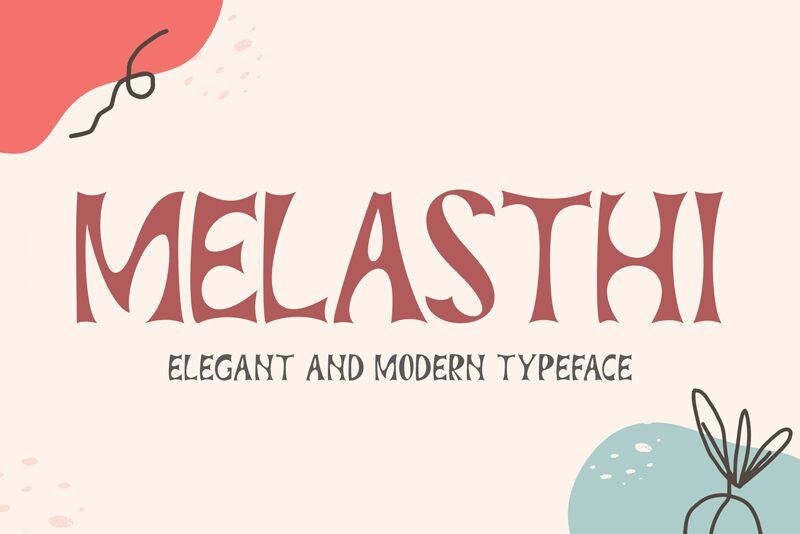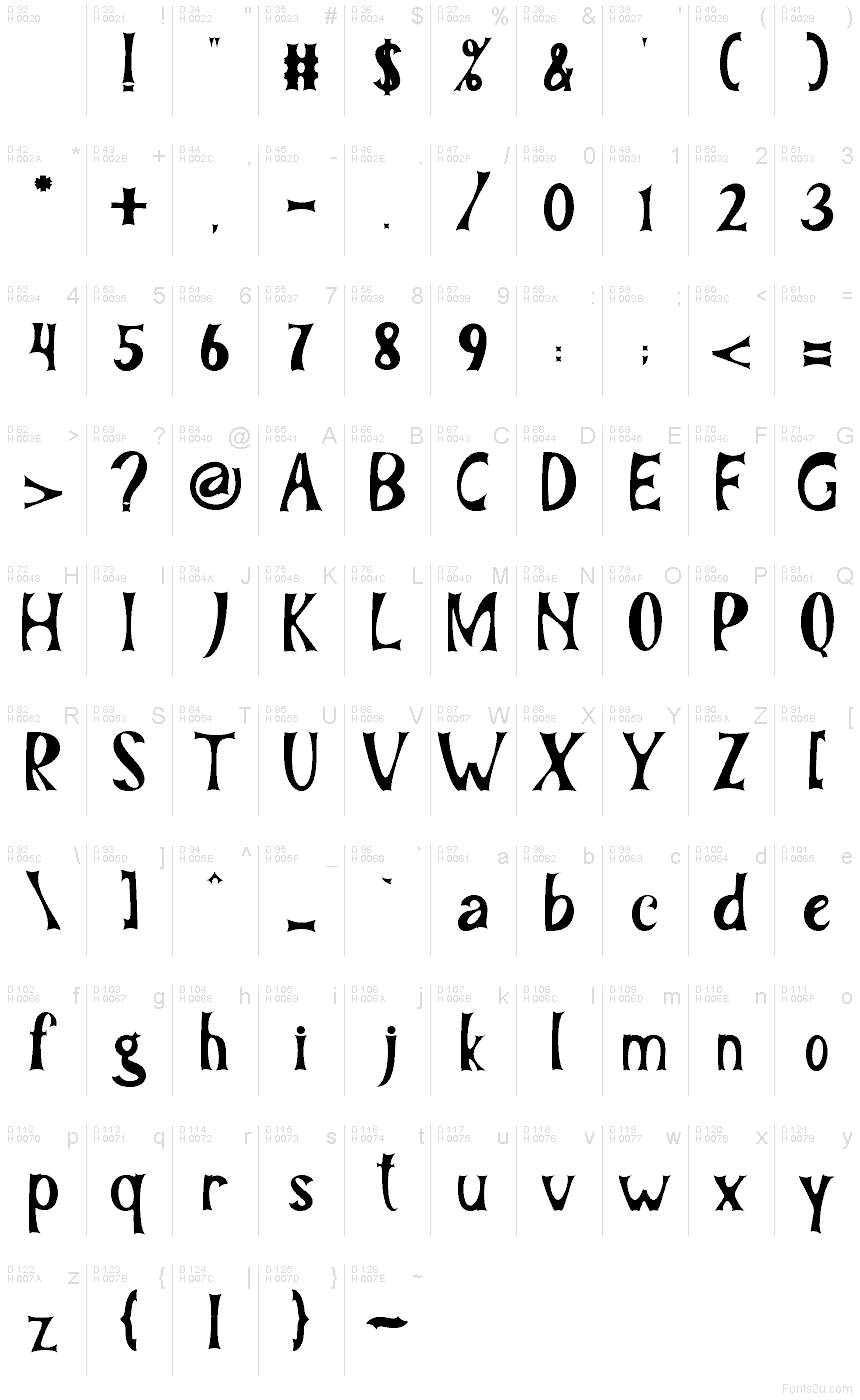
MELASTHI
Melasthi font by Yoga Letter is a free decorative display typeface with a lush, wavy rhythm that feels almost liquid on the page. Each letter swells and narrows in unexpected places, like ink pulled by a tide, giving words a flowing, hypnotic energy. The sharp inner curves and soft outer contours create a bold, organic texture that grabs attention without feeling harsh or mechanical.
Using Melasthi, you can instantly inject a dreamy, slightly psychedelic mood into posters, album covers, book titles, event branding, packaging, and social media graphics. This free font shines at large sizes where its curvy silhouettes can breathe and show off their movement; pair it with a clean, neutral sans serif for body text to keep layouts readable and balanced.